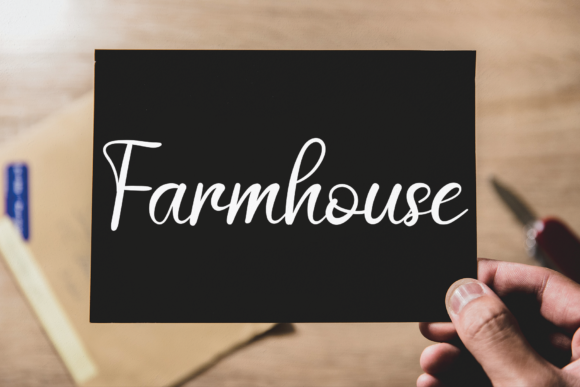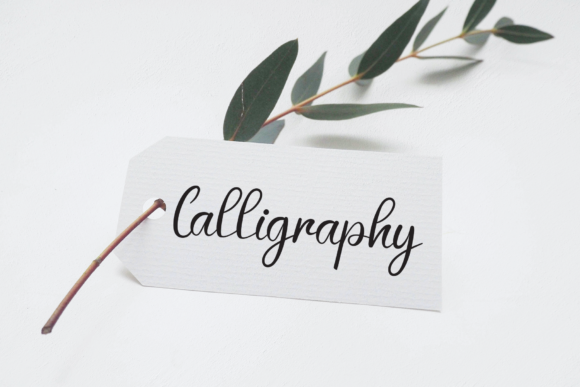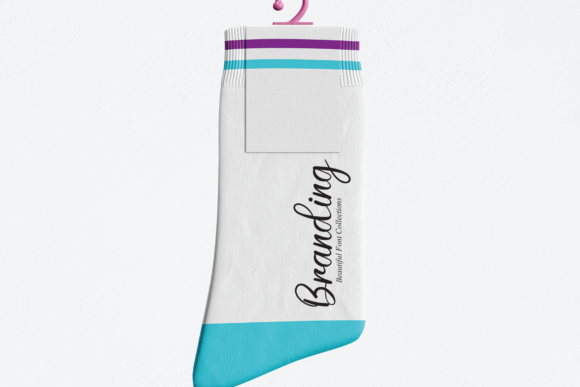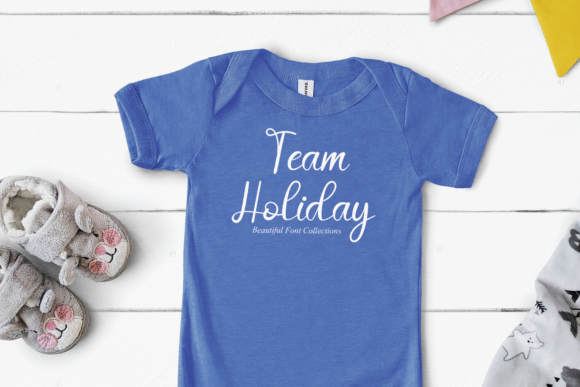
Introduction to Rooky Font
As a designer, have you ever found yourself staring at a blank canvas, waiting for the perfect spark to ignite your next creative project? For many of us, it’s the subtle details that can make all the difference in bringing our vision to life. That’s exactly what Rooky Font is all about – a sweet handwritten font that’s been carefully crafted to deliver the expected results.
With its beautiful and balanced character, Rooky Font is an invaluable design resource that fits seamlessly into any project. Whether you’re working on a free download or a high-end commercial campaign, this font is sure to add a touch of warmth and personality to your design. And the best part? Its transparent background makes it easy to layer and customize to suit your needs.
Key Features of Rooky Font
- Unique, modern design perfect for creative projects and innovative designs
- High-quality font with transparent background, ideal for graphic design and digital art
- Perfect for use in digital creative projects, including logos, branding, and advertising materials
- Supports a wide range of languages, making it a versatile design resource for global projects
Honest Review: Rooky Font
As a designer, I’ve had the chance to work with a variety of fonts, but I wanted to share my thoughts on the Rooky Font. I downloaded it as a free resource for a creative project, and I was excited to see how it would perform.
What works well: ✨ The Rooky Font has a unique and quirky feel to it, which makes it perfect for projects that need a bit of personality. I used it for a client’s logo design, and the result was exactly what they were looking for.
What doesn’t: ⚠️ The font is only available in a limited number of weights, which can make it difficult to achieve the right level of contrast in your design. Additionally, the transparent background option can sometimes cause issues with text legibility.
- Limited number of weights available
- Transparent background option can cause text legibility issues
Overall, I’d say the Rooky Font is a great resource for designers who want to add some creativity to their projects. While it has its limitations, it’s a high-quality font that’s definitely worth considering for your next design project.
Rooky Font is commonly used in creative projects such as graphic design, branding, and digital art. It’s a great option for designers who want to create high-quality designs with a transparent background.
For the most out of Rooky Font, use it in combination with other design resources such as images and graphics. Experiment with different font sizes, colors, and styles to create unique and creative designs. With Rooky Font, the possibilities are endless!